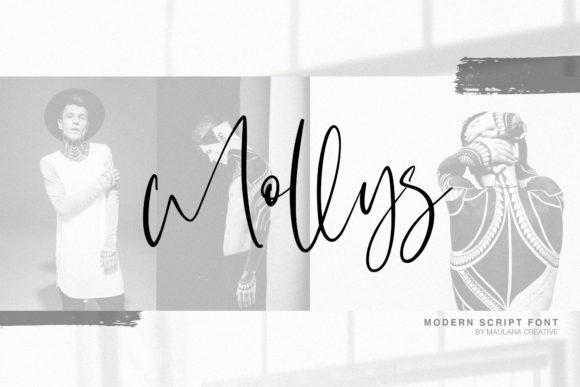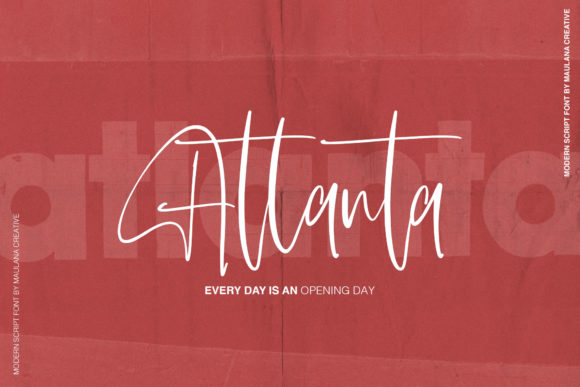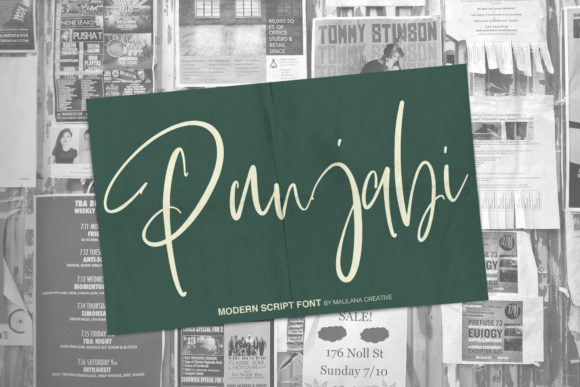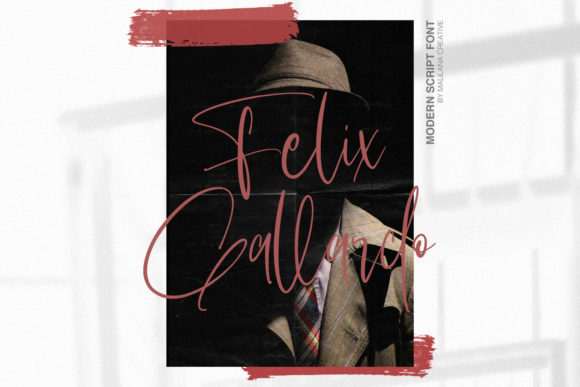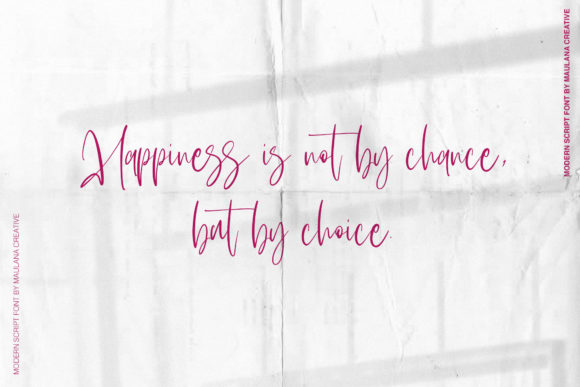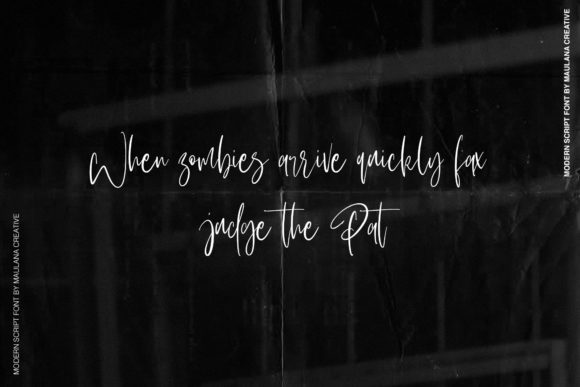
Fairbanks Font
About Fairbanks Font
Fairbanks is a stunning script, perfect for giving your designs an authentic handcrafted feel. It will work well for stationery, logos, typography quotes, magazine or book covers, website headers, clothing, branding, packaging design, and more!